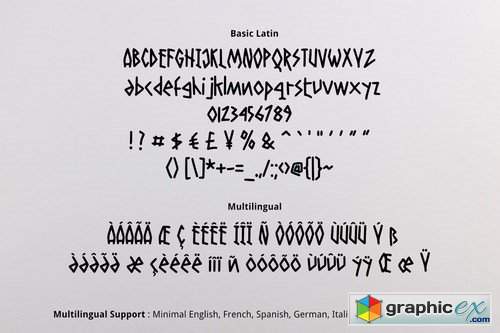
Kinema Font
Kinema Font is simple cute playful multipurpose handmade font, suitable for many project children book, quotes, logo , heading , title etc.